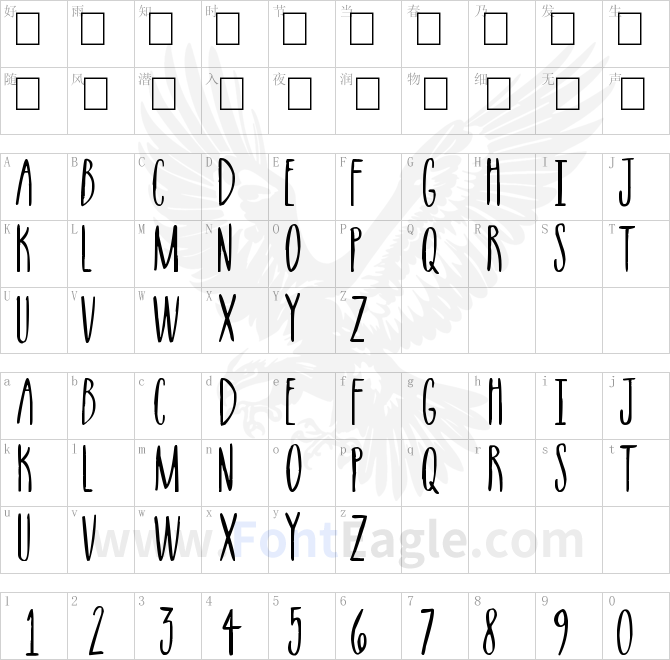
- Font name:Supernova
Supernova is a great font, widely used in graphic design, single-page menu design, poster design and other fields, and is deeply loved by designers.Supernova download.